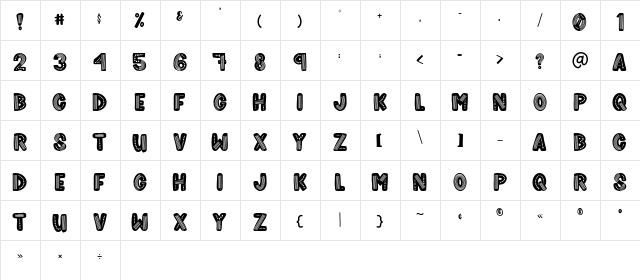
Rainboho Regular
| Foundry | The Pretty Letters |
| Designer | Stephanie Peay |
Design Context for Rainboho Typeface
Rainboho is a composed and adaptable typeface that performs quietly and consistently across a wide range of design contexts.